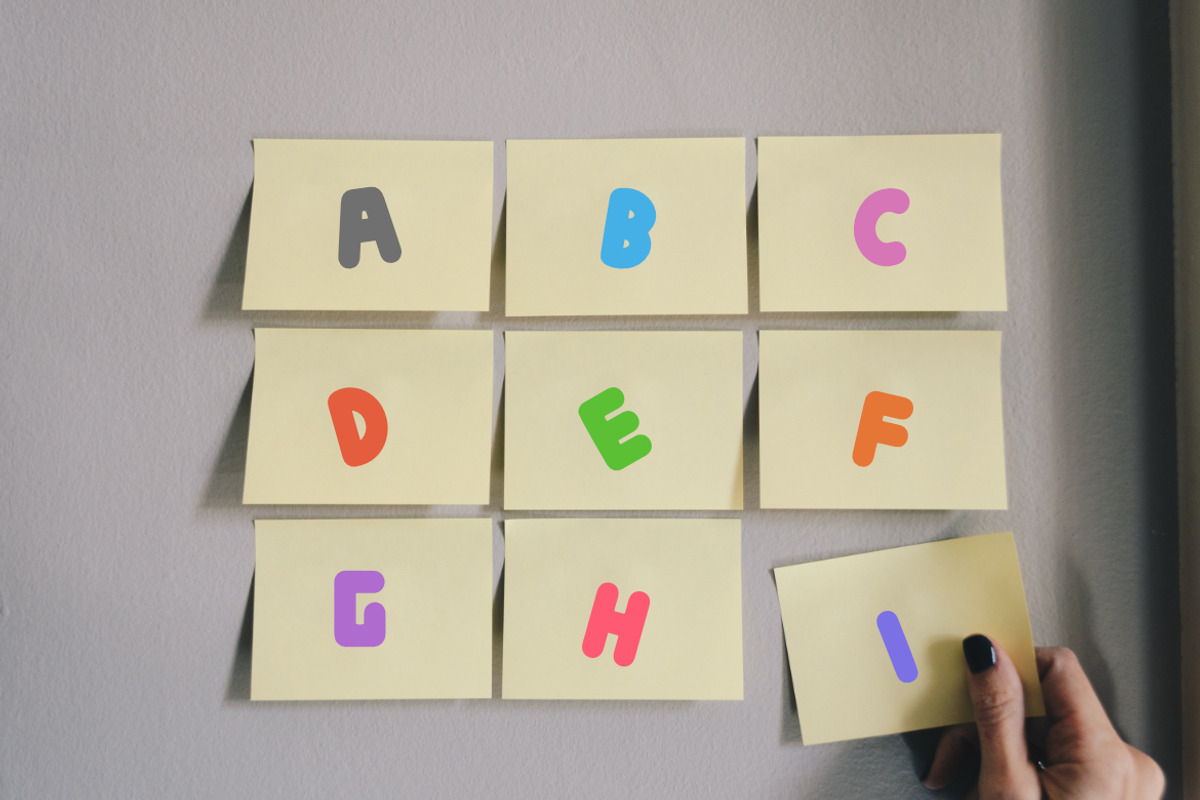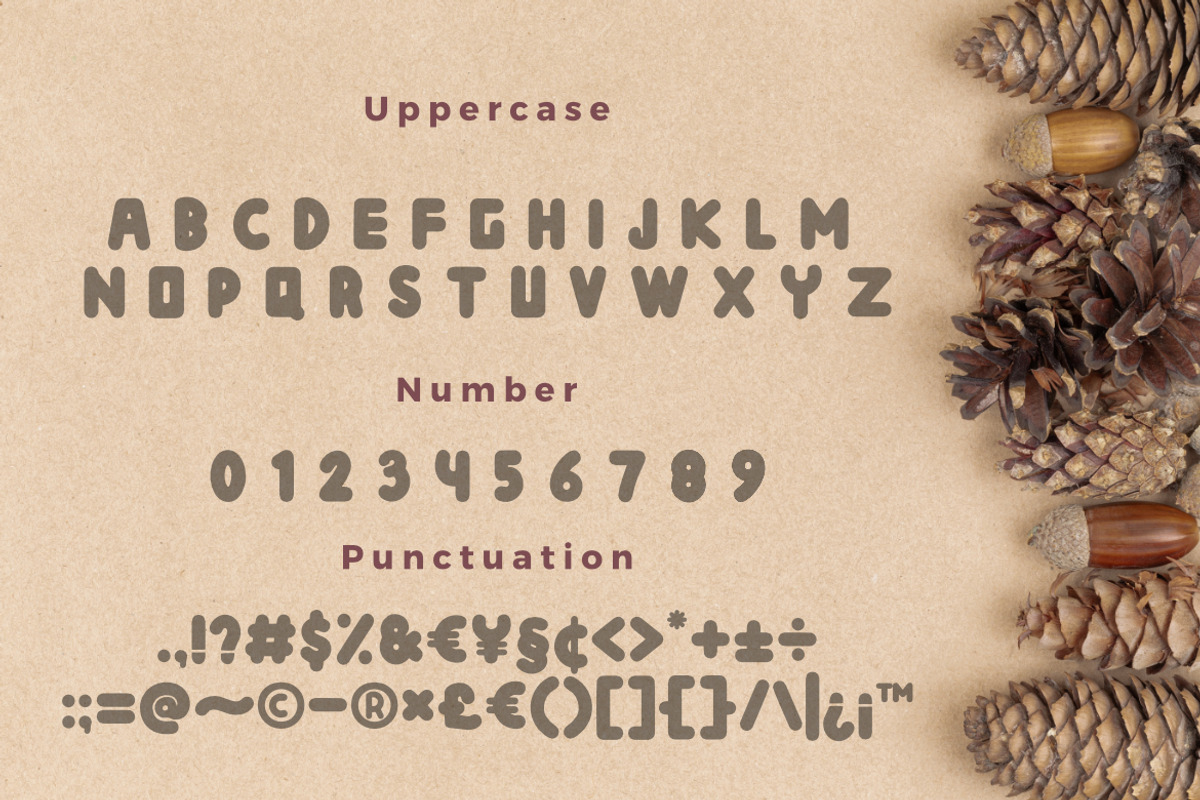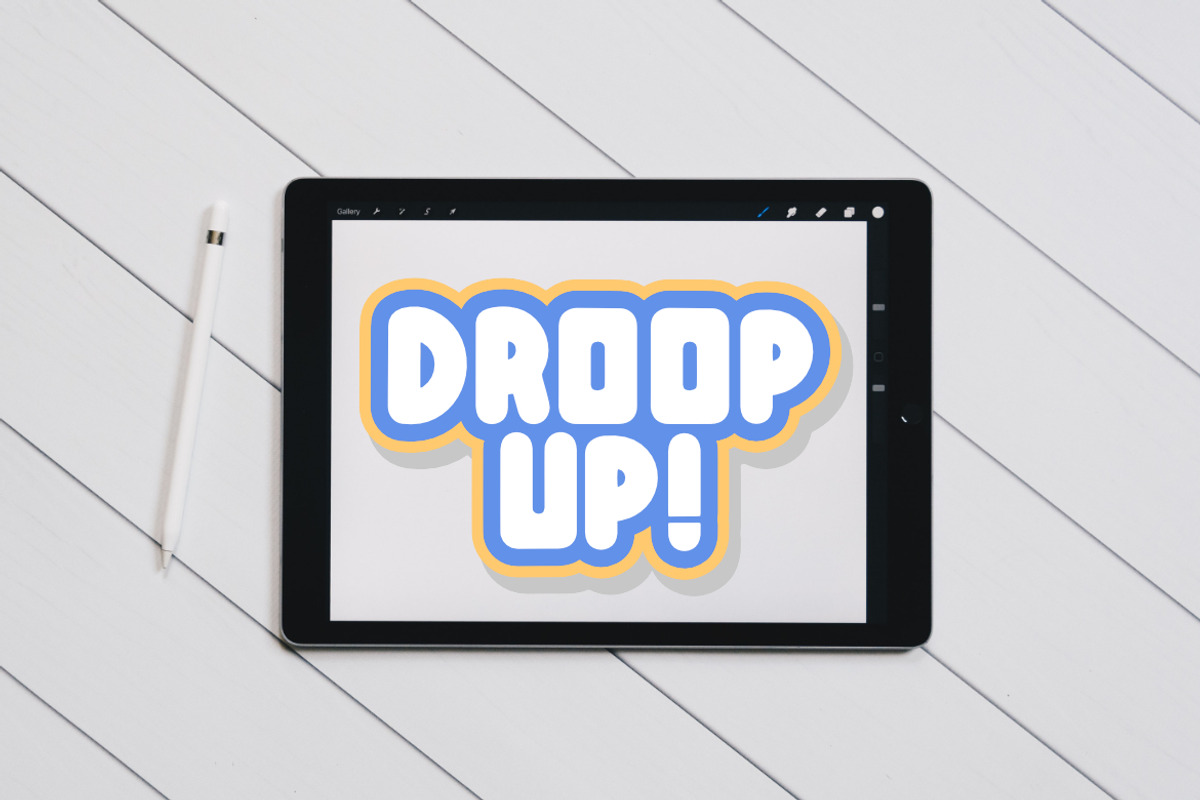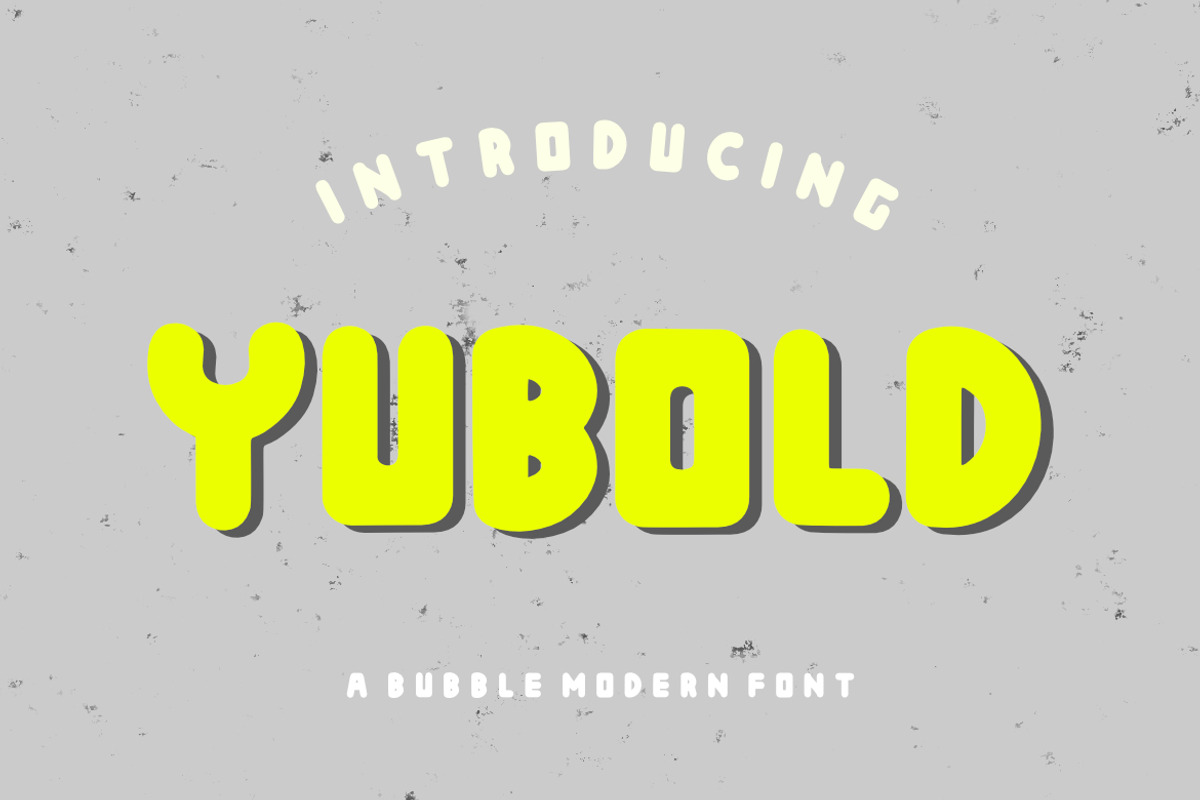
Yubold a Bubble Modern Font
Yubold a Bubble Modern Font, inspired by round style modern typography. This font is made with a high premium quality level which you can use as flyers, quotes, posters, banners, packaging, merchandise, logotypes and much more.